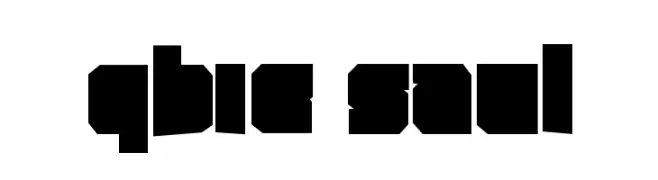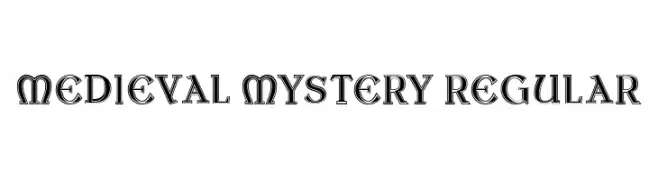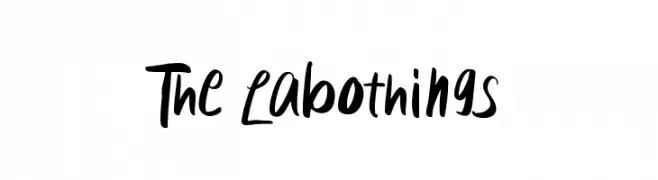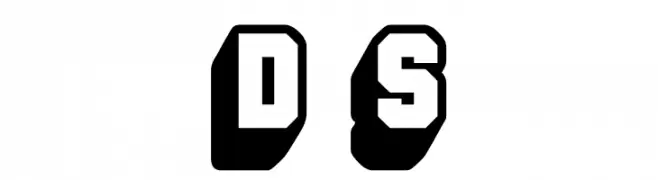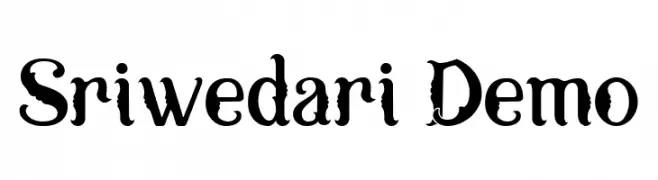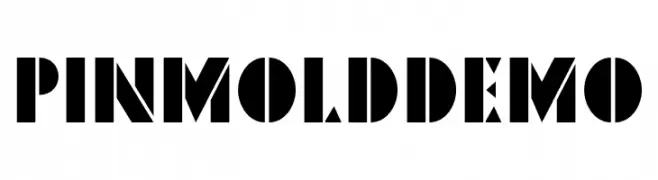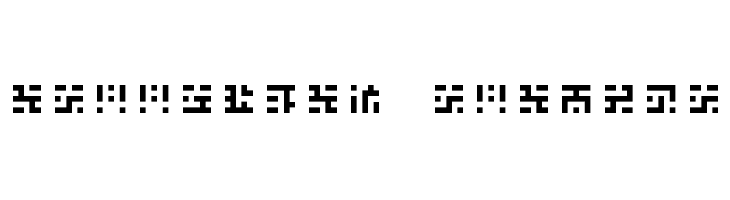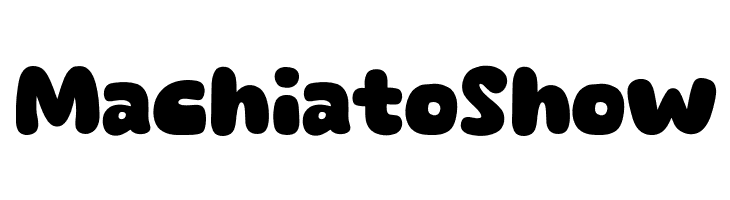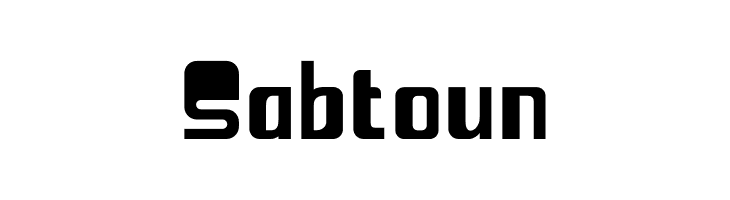
A bold, geometric font with blocky, angular letterforms.
A bold, jagged font with a chaotic, hand-drawn style.
A bold, medieval-inspired font with ornate and decorative elements.
A bold, expressive handwritten font with fluid strokes and dynamic curves.
A playful, handwritten font with smooth, rounded edges and a casual style.
A bold, three-dimensional font with deep shadow effects for standout text.
A decorative and ornate font with bold strokes and intricate detailing.
A bold, geometric font with high contrast and sharp angles.
A flowing, cursive font with elegant loops and swashes, offering a handwritten appearance.
A bold, playful font with a hand-drawn, textured style.